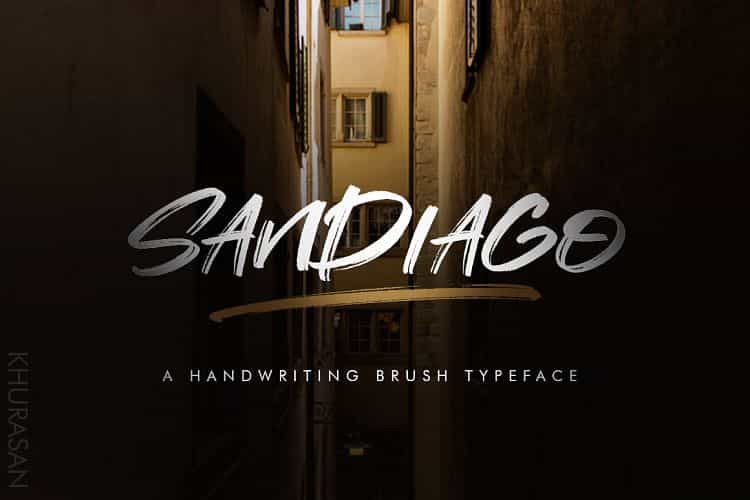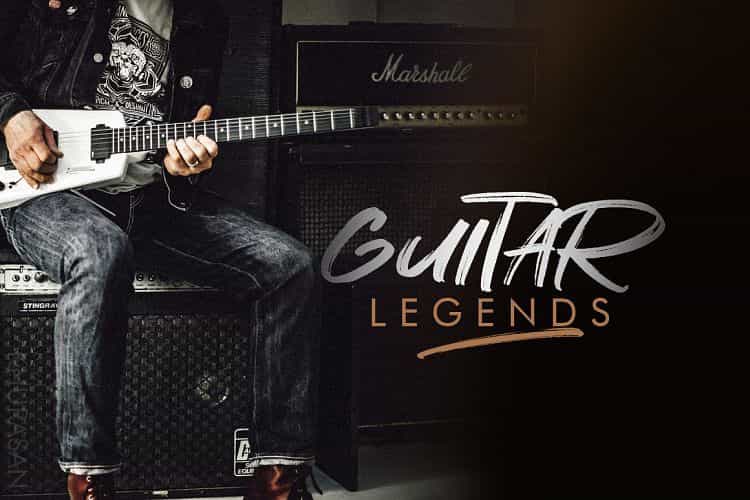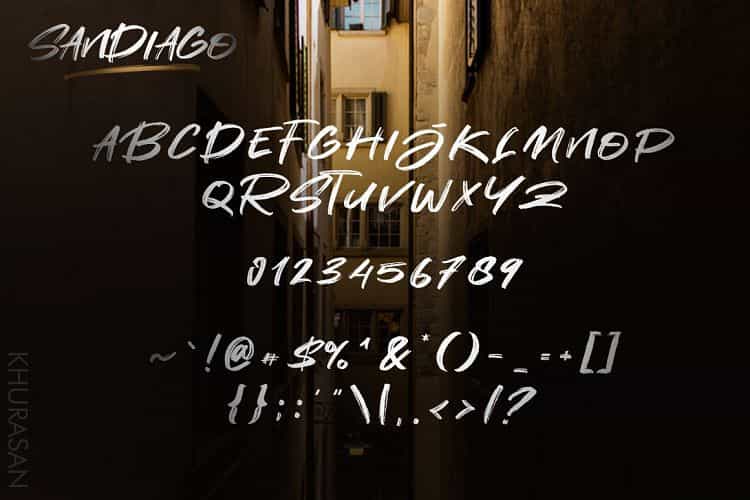
Introducing Sandiago Font. The Sandiago is a new handwritten font brush, with elegant and vintage feel character set. The Sandiago font type contained only capital letters, as well as multilingual support, numerals, punctuation and swashes.